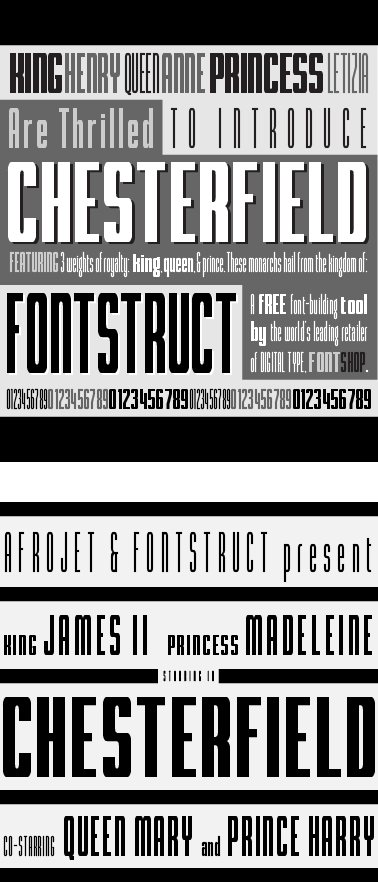
• The Chesterfield Royal Family was formed from my desire to add new weights to the original Chesterfield typeface. In the process of drawing these new weights, I began modifying some of the forms of the new glyphs away from the original Chesterfield glyphs in order to build a more flexible brick/grid structure for the development of various weights. The most noticeable difference between these three new faces and the original is the lowered x-height. That said, there are still some compromises between the different weights and because of that I've given them these royalty names instead of the normal practice of light, regular, and bold weight names. One of the biggest compromises occurs in the Prince weight, where I was unable to add the notch where bowls and shoulders meet stems (see King and Queen weights) without adding too much extra black weight to those parts of the glyph.